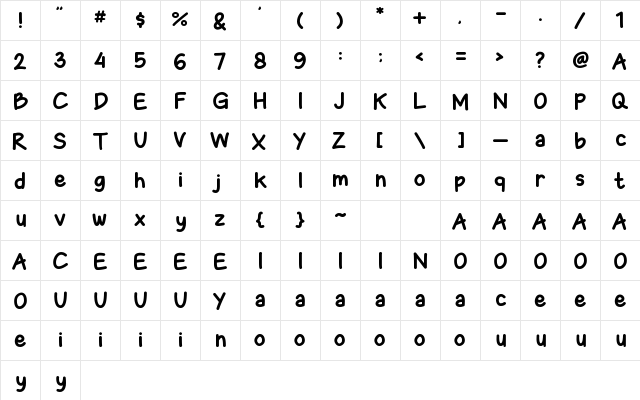
FanKids Regular Font Preview
FanKids Regular
FanKids Regular Font Details
Design Context for FanKids Typeface
FanKids trades formality for fun, with bouncy, characterful letterforms that bring warmth and energy to any project.
Font Pairing: Pairs well with a rounded or humanist sans for body copy, maintaining the friendly tone without relying on FanKids to carry extended reading.
Pro Tip: Use FanKids at larger display sizes where its expressive character can land. Pair with a clean, simple sans for body copy to maintain readability.